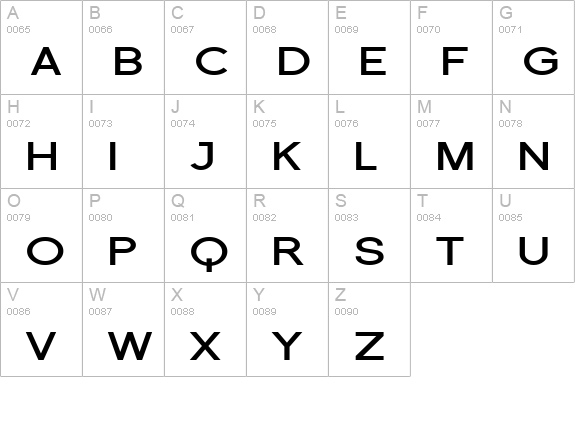
Florencesans Exp Bold is a strong, high-contrast variant in the Florencesans typeface family \xE2\x80\x94 well suited to headlines, attention-grabbing titles, and strong calls-to-action.
Florencesans Exp Bold is a versatile and modern typeface that exudes confidence and sophistication. Its bold weight commands attention while maintaining a clean and streamlined appearance. Perfect for headlines, logos, and other design projects that require a strong and impactful look. What sets Florencesans Exp Bold apart is that it is a high-quality font that is freely available for download at FontsMarket.com. This means that designers and creators can easily access this premium typeface without any cost, making it a valuable asset for any project. With its timeless design and bold presence, Florencesans Exp Bold is sure to make a statement in any design endeavor.